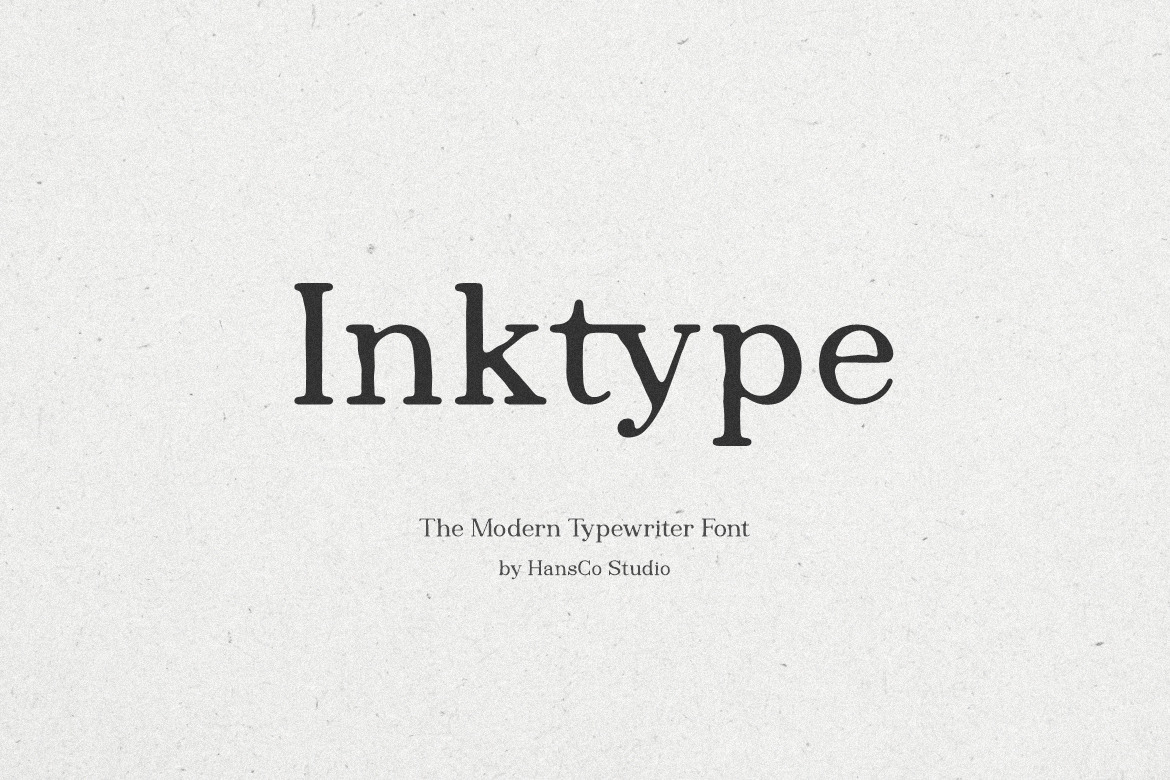
Inktype Font
Inktype Font is a cute and modern hand drawn serif font carefully created with a touch of classic vintage. Whether you’re looking for fonts for Instagram or for DIY projects, this font will turn any creative idea into a true piece of art!. This font is perfect also for creating print templates like posters, branding, quotes, blog titles, fashion, invitations, greeting cards, business cards, clothing, stationery or anything else. Comes with a full uppercase, lowercase, numbers, punctuation and with extensive language support, it’s going to be a very usable addition to your project.
Ligature